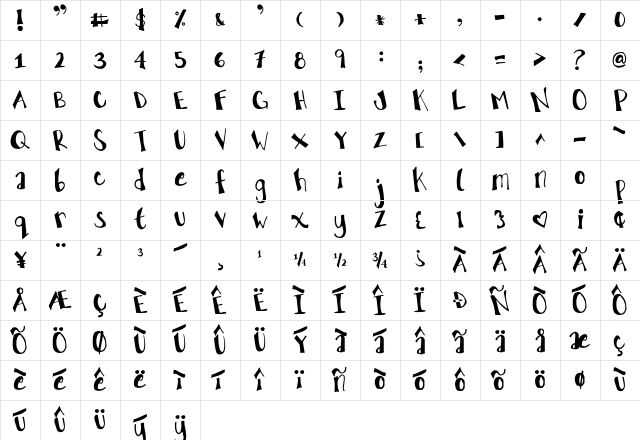
Complete KG The Truth of a Thousand Lies Regular glyph index. Displaying only characters natively supported by KG The Truth of a Thousand Lies Regular font.
KG The Truth of a Thousand Lies is a composed and adaptable typeface that performs quietly and consistently across a wide range of design contexts.